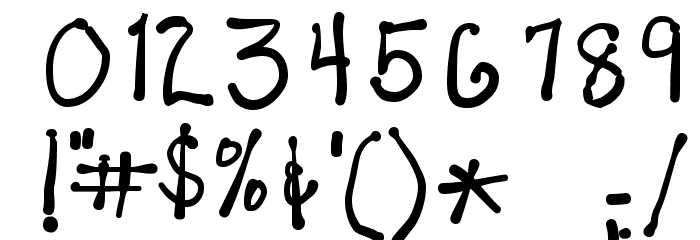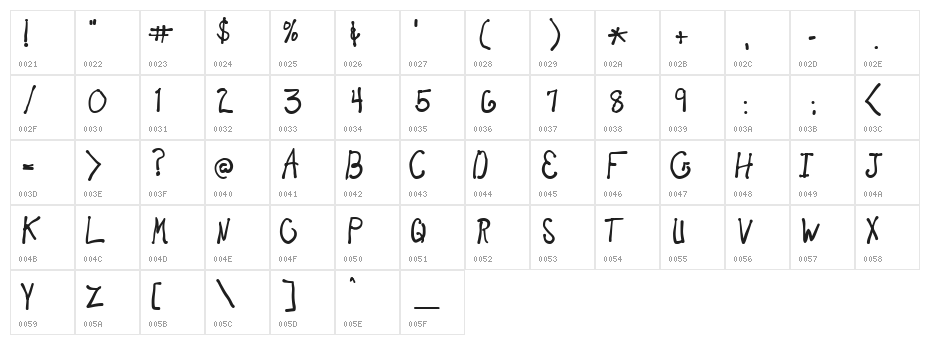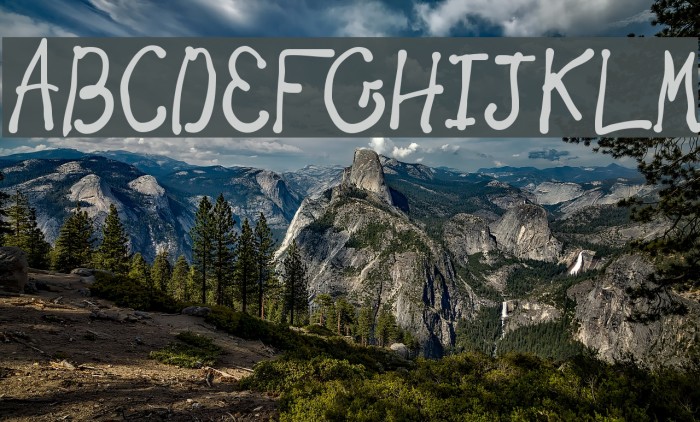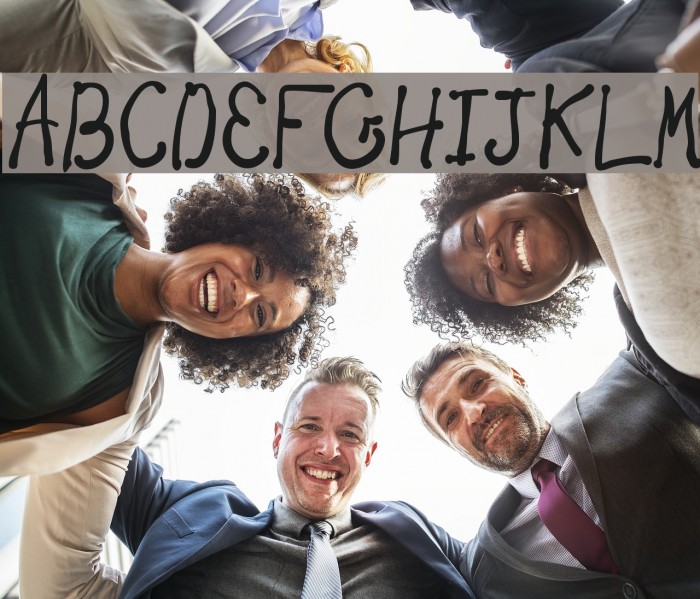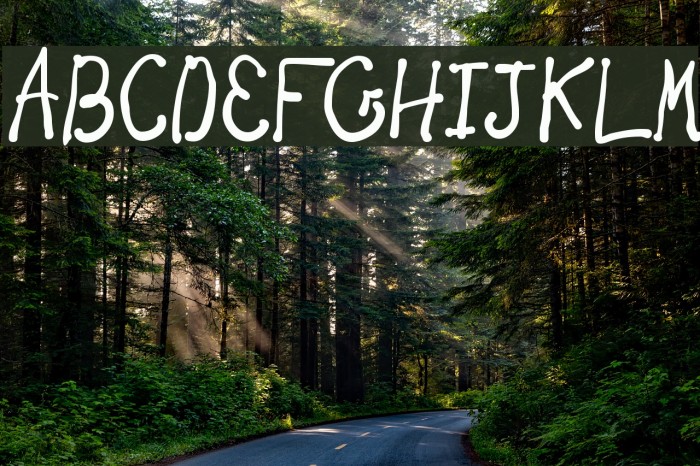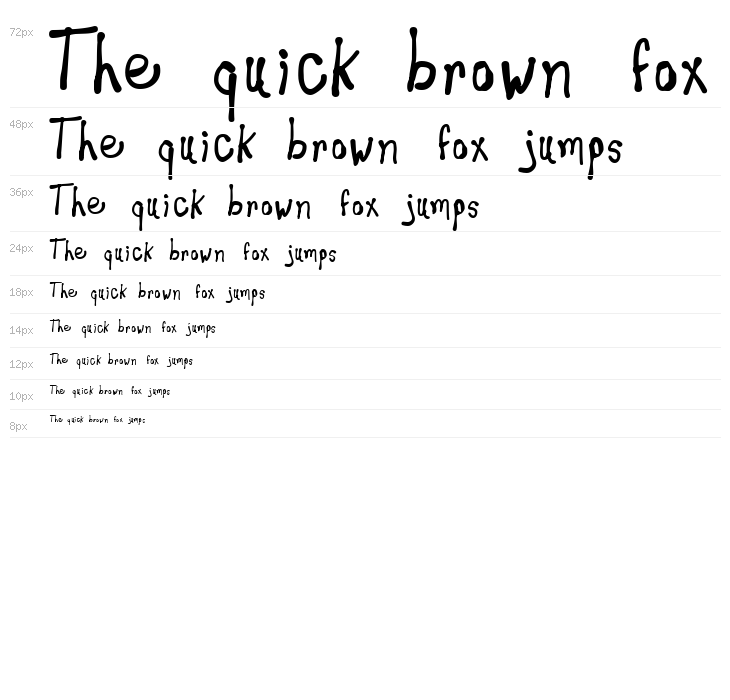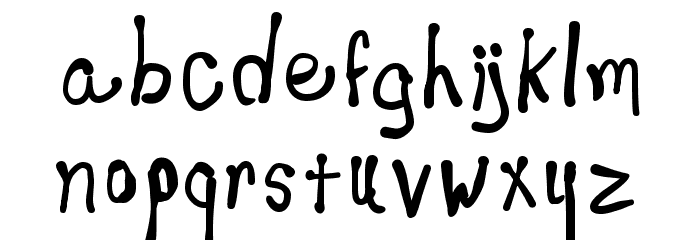
New Toy Font
New Toy Description
This playful and whimsical font features a handwritten style with irregular strokes and a casual appearance. The characters are slightly uneven, giving it a charming, informal look. The uppercase letters are bold and prominent, while the lowercase letters maintain a consistent flow, adding to the font's approachable nature. Numbers and special characters follow the same playful design, making it versatile for various creative projects. The font's unique personality makes it ideal for projects that require a touch of fun and creativity.